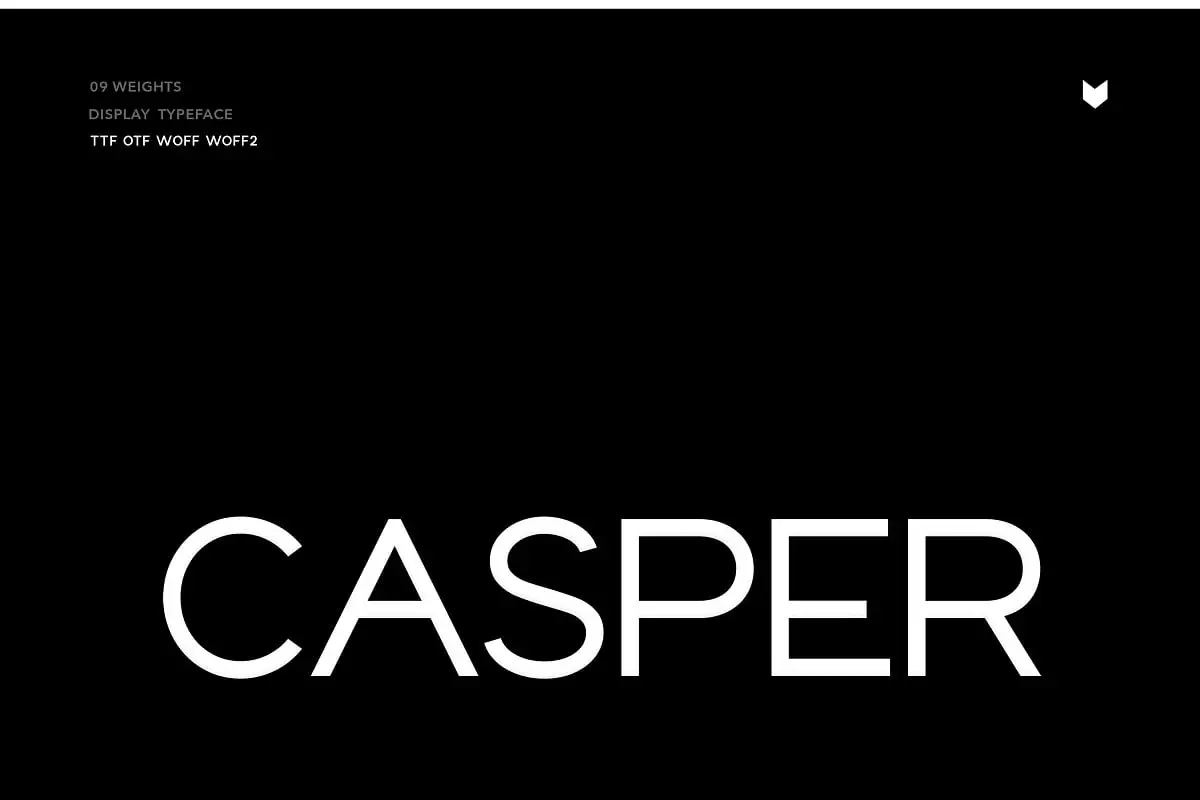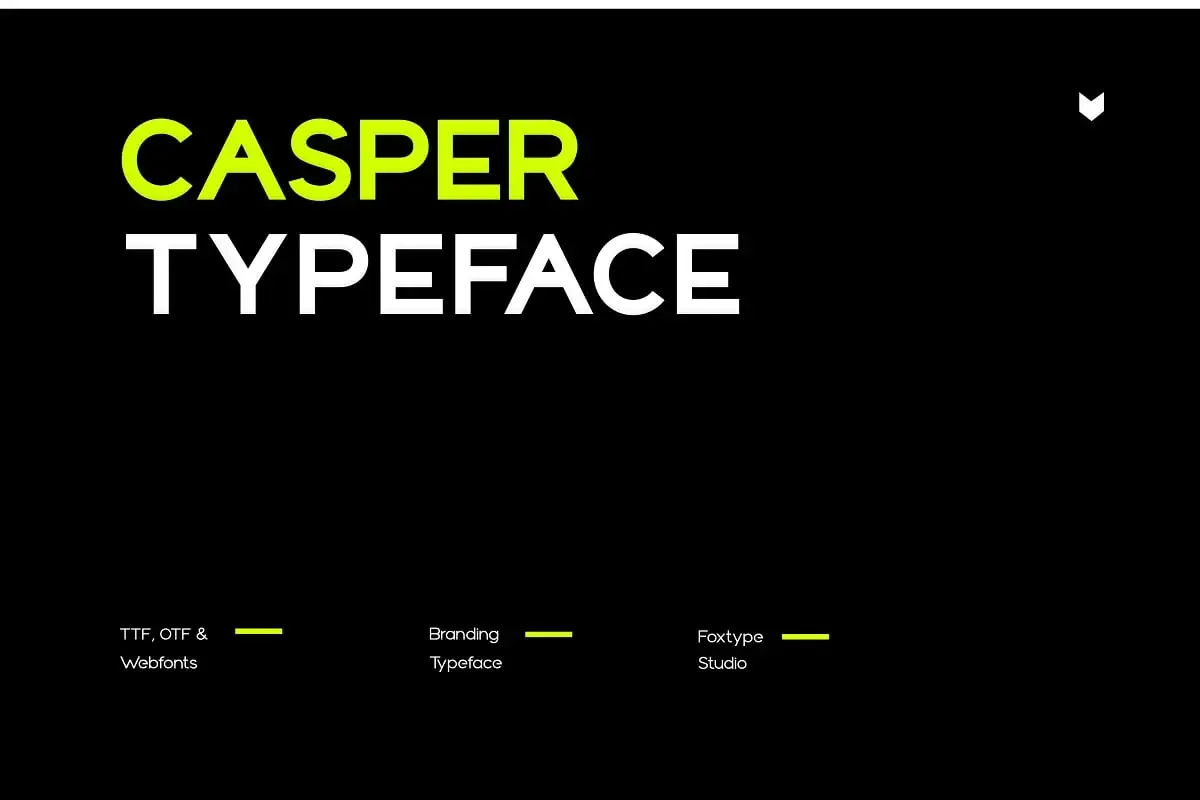
Casper Typeface
The Casper Typeface is a modern and versatile font that seamlessly blends elegance with readability. This typeface is perfect for a variety of applications, including branding, logos, web design, and print materials.
• Multiple weights for diverse usage
Utilize the Casper Typeface for eye-catching headlines, engaging social media graphics, or elegant invitations. Its versatility makes it an excellent choice for both digital and print projects.